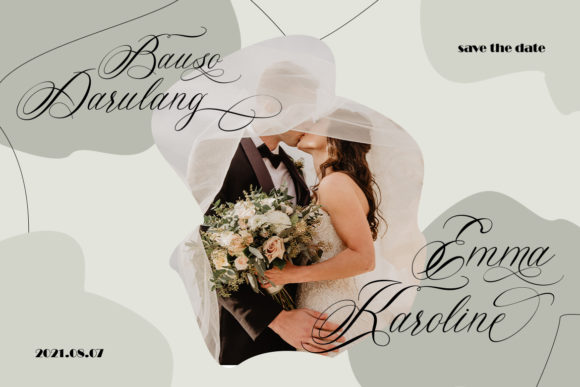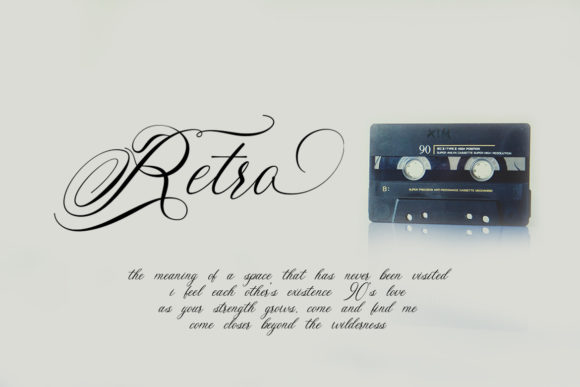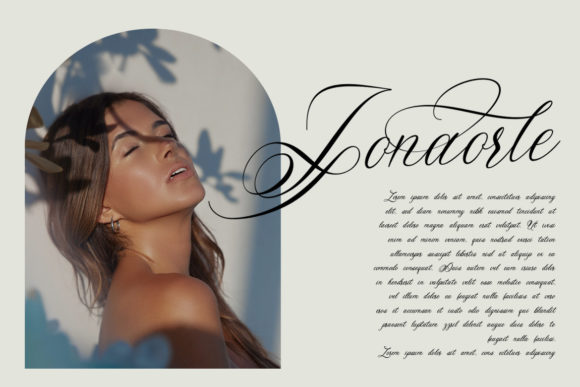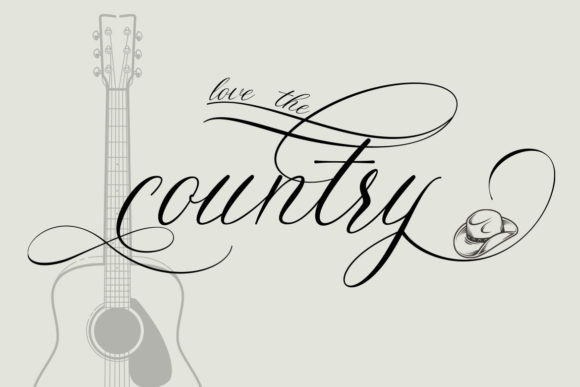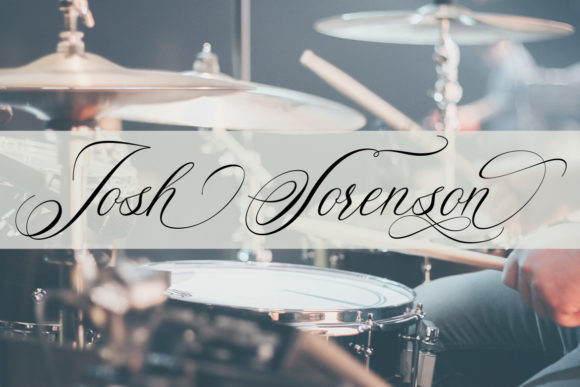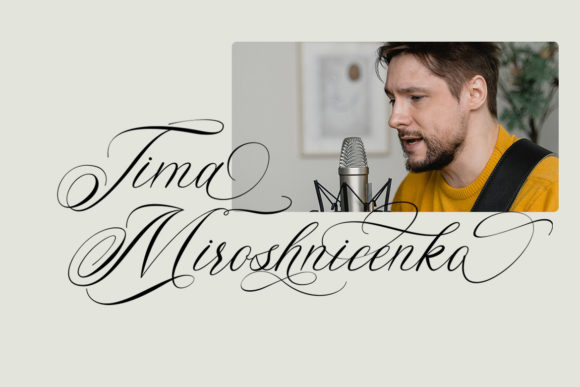
Introduction to Melody of Love Font Font
Fonts play a crucial role in design, and the Melody of Love Font font is a typeface that brings both character and versatility to any project. Whether you’re working on a branding project, a website, or a print design, the Melody of Love Font font offers a unique style that can elevate your work.
Melody of Love is a thin lettered and graceful script font.
Fall for its ravishing style and use it to create gorgeous wedding invitations, beautiful stationary art, eye-catching social media posts, and much more .
Key Features of Melody of Love Font Font
Why Choose Melody of Love Font Font?
The Melody of Love Font font is more than just a typeface – it’s a design tool that helps you communicate your message with style and clarity. Its unique character set and versatile design make it suitable for a wide range of applications, from elegant invitations to bold headlines.
With its carefully crafted letterforms and balanced proportions, the Melody of Love Font font ensures readability and visual appeal across all mediums.
What makes Melody of Love Font font special?
The Melody of Love Font font stands out with its unique design, exceptional readability, and versatility across various design applications.